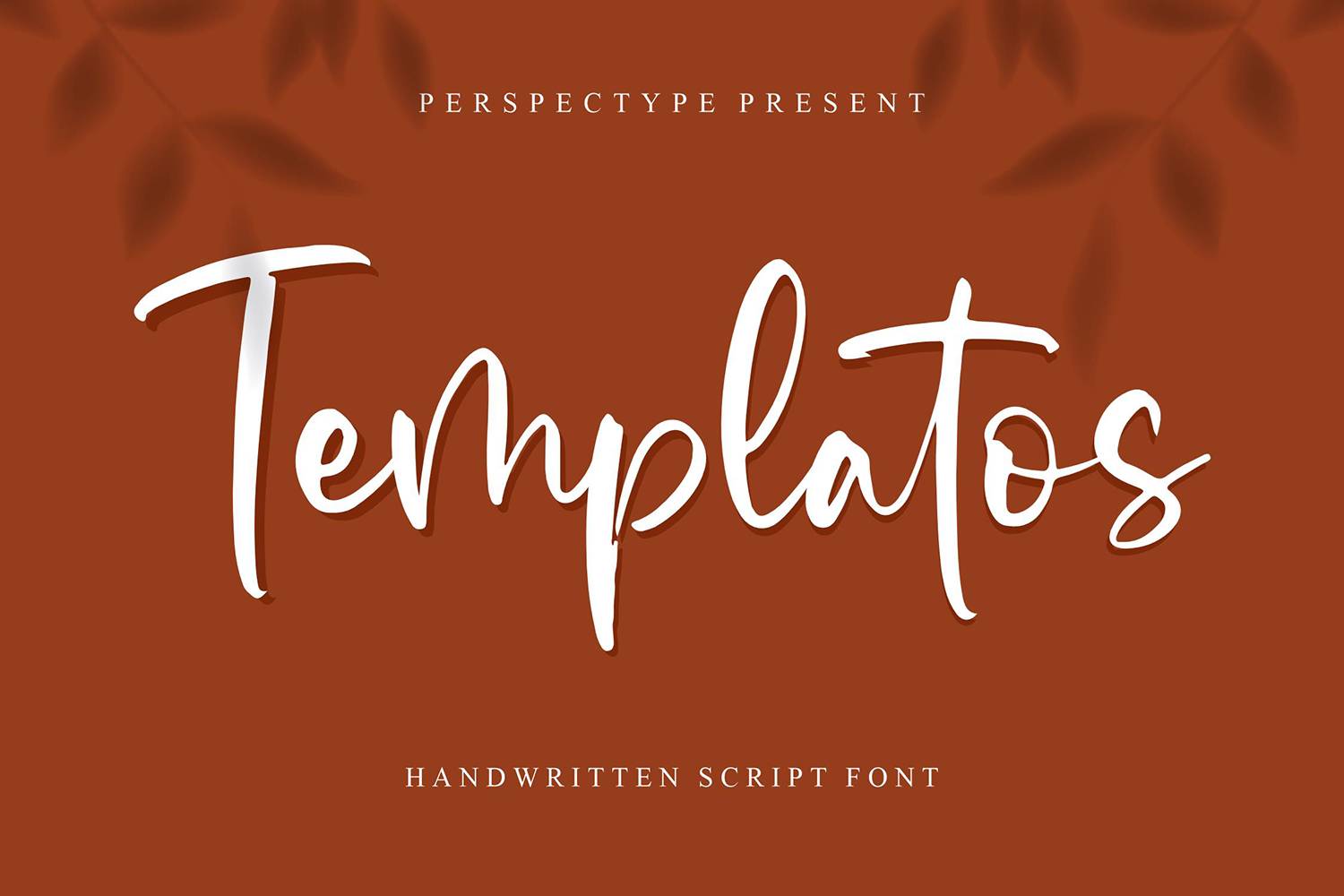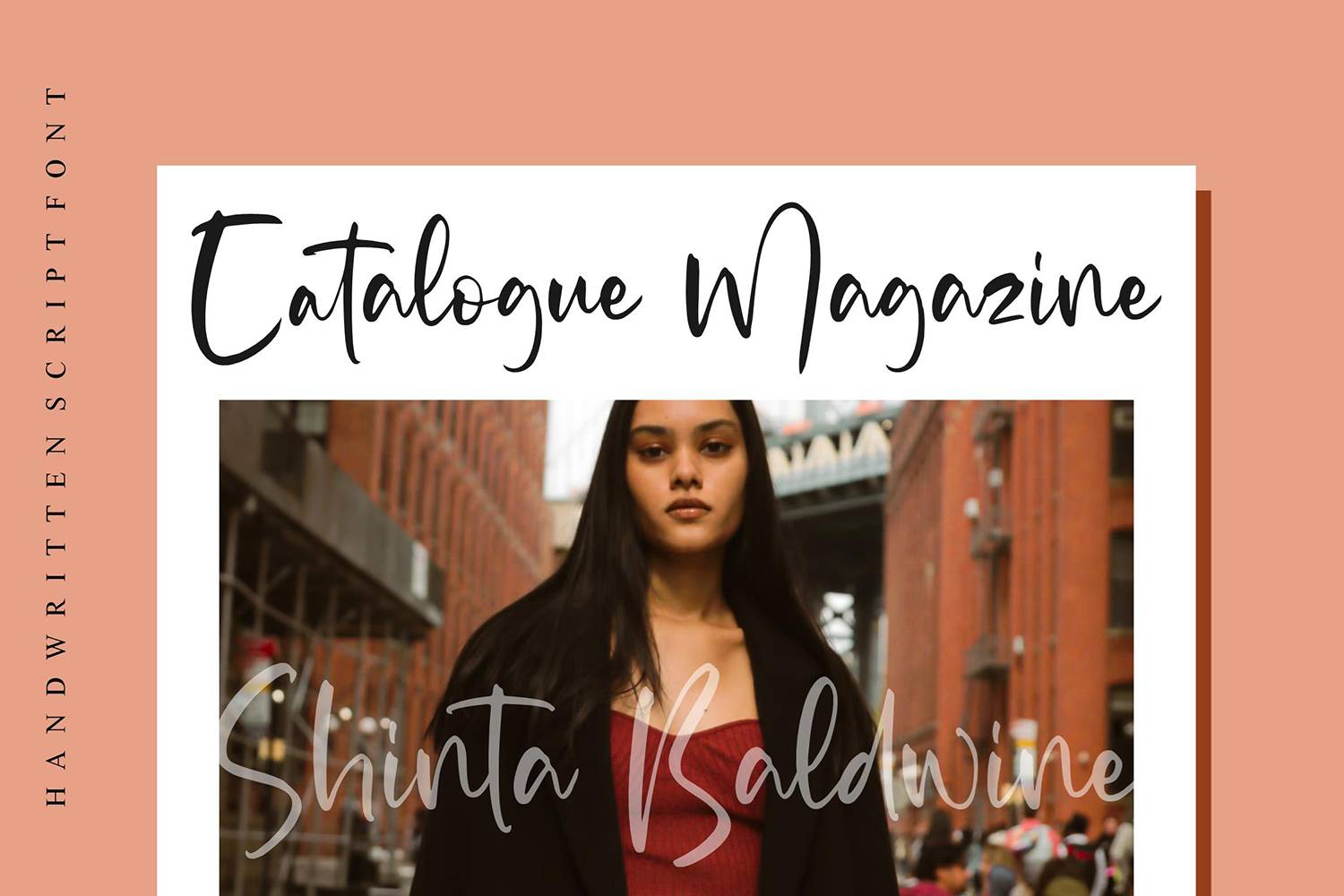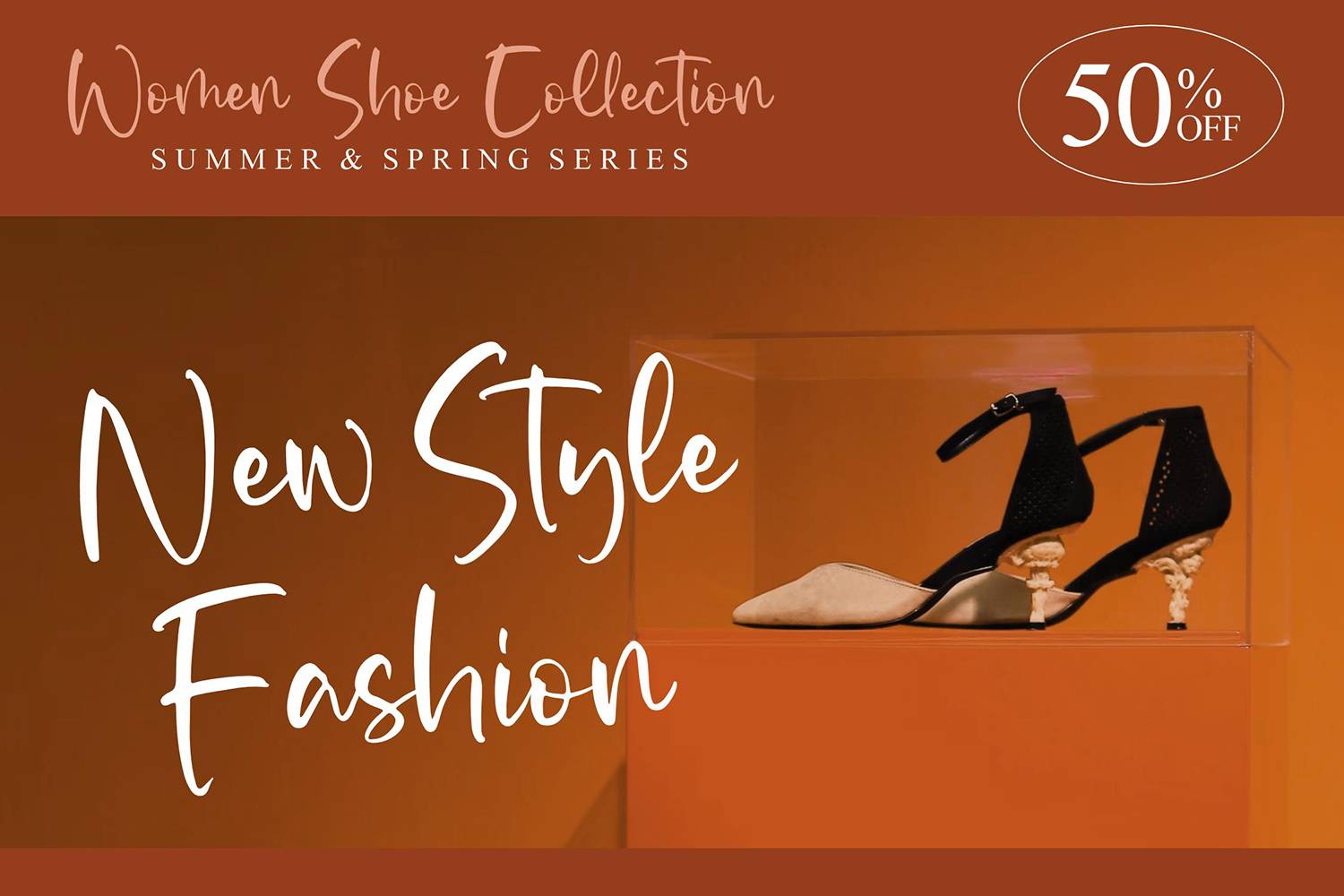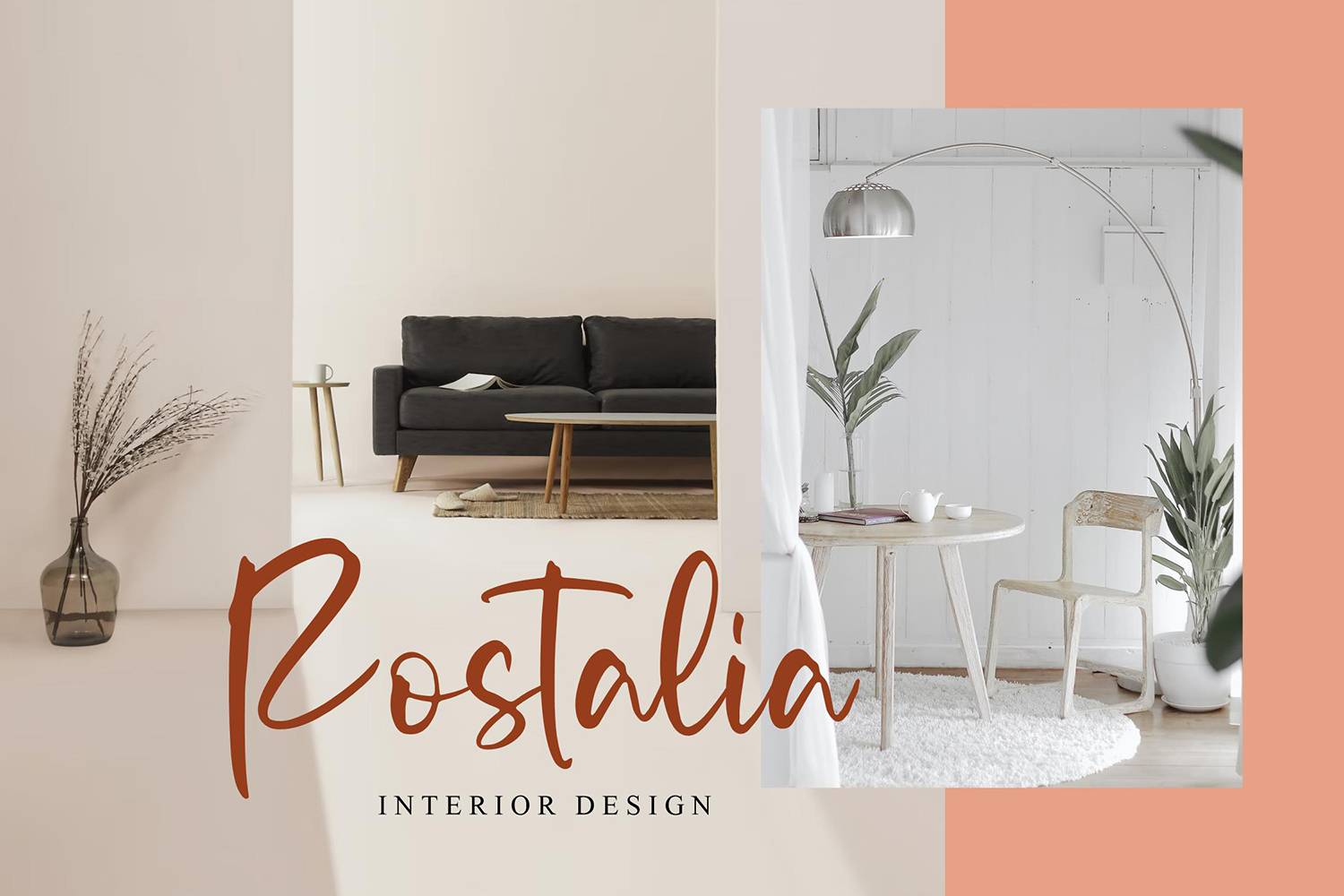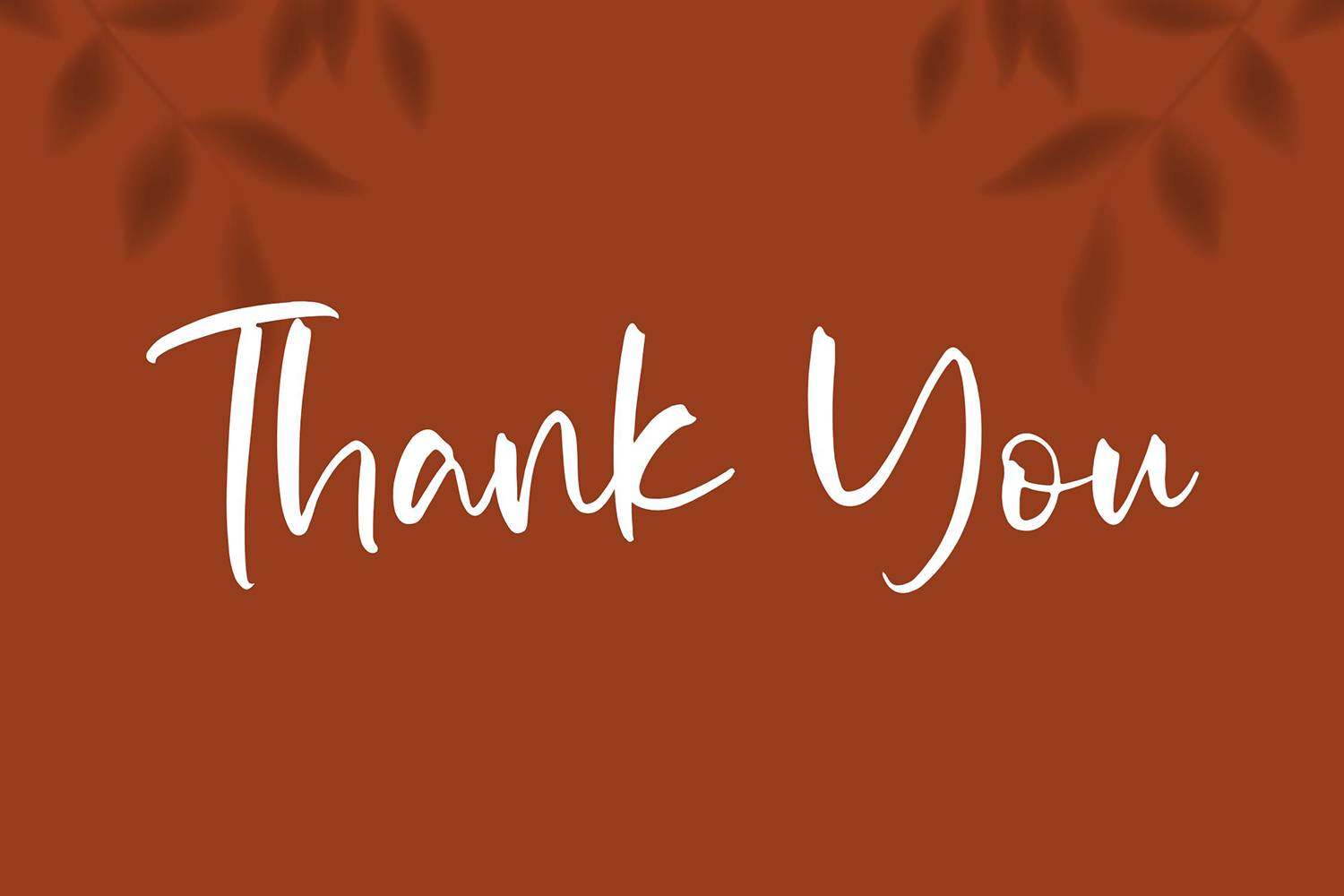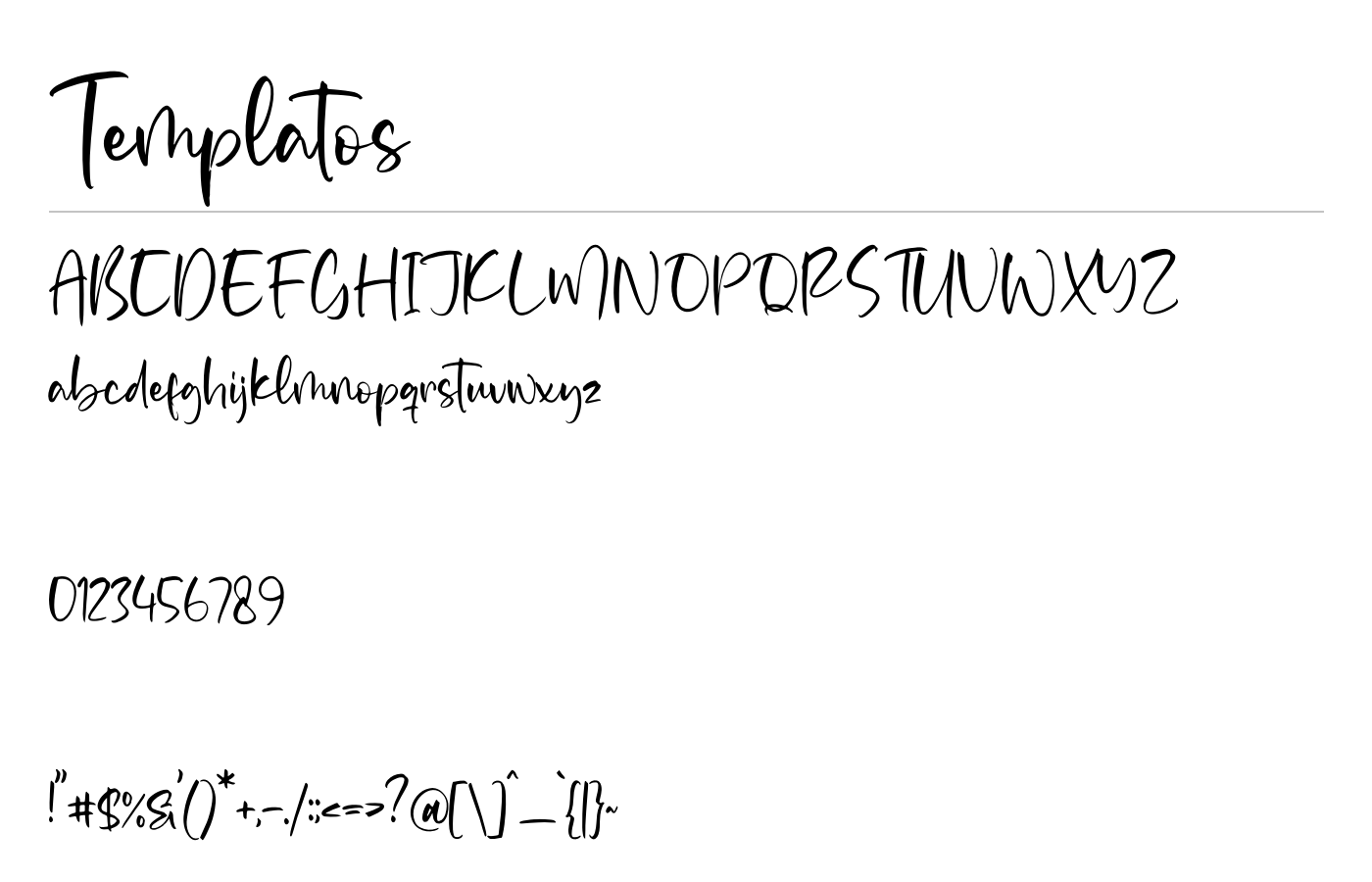
Templatos is a lively, hand-drawn script font with a casual, artistic feel, characterized by its tall, slightly irregular letterforms and smooth, flowing strokes. Its slender weight and natural, handwritten style make it perfect for creative projects, personal branding, and invitations where a friendly, approachable vibe is desired. This font works especially well in headlines or logos that seek to convey warmth and individuality.
Templatos Font
About Templatos Font